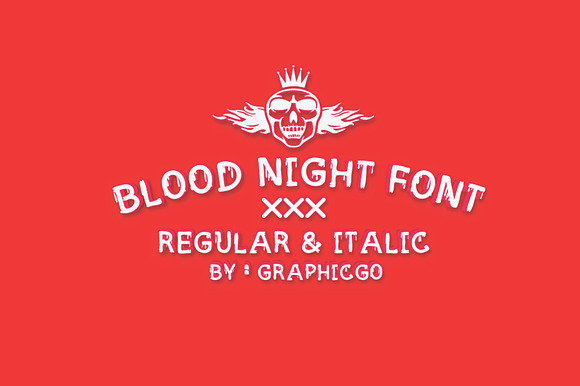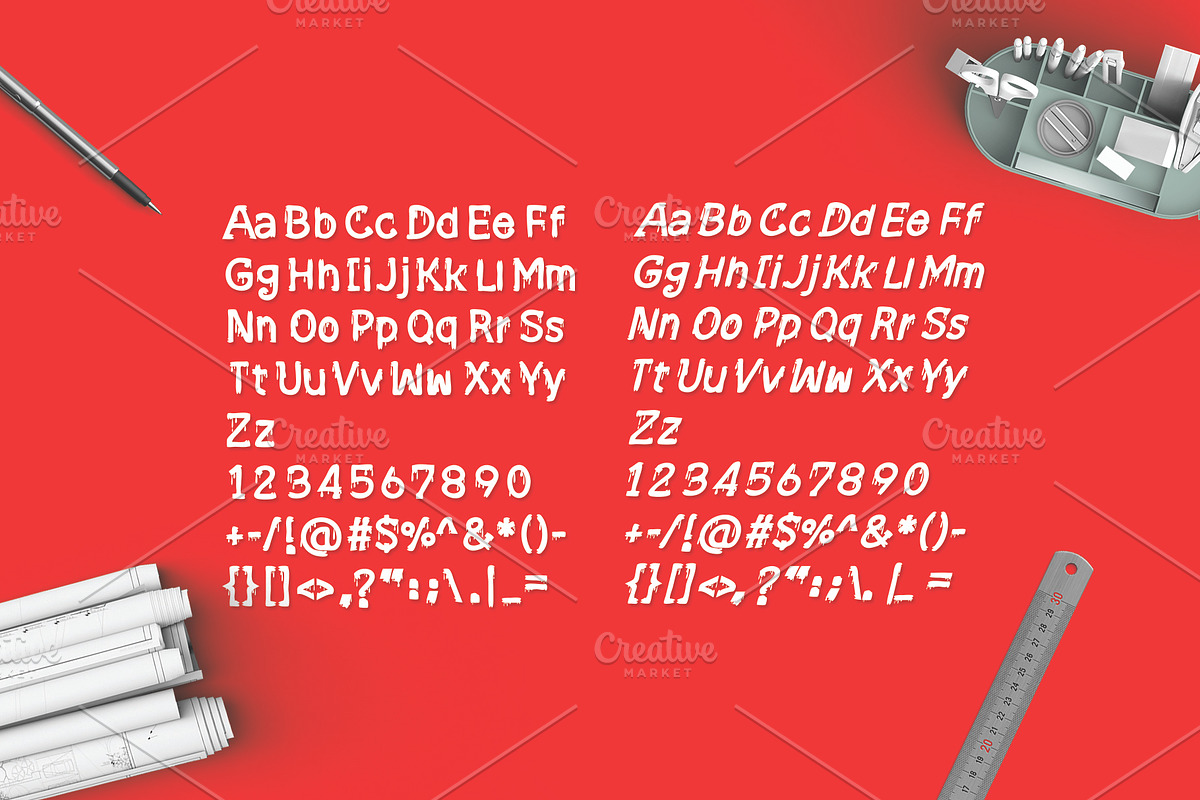
Blood Night Font
Blood Night Font is bold brush with blood drop writing style. It 's perfect for Halloween cards, Halloween party theme, horror posters, wall art, branding, diy projects, greeting cards, labels, quotes....
Uppercase and Lowercase
Blood Night Font by Graphicgo fits naturally into Branding, posters, packaging, typography.